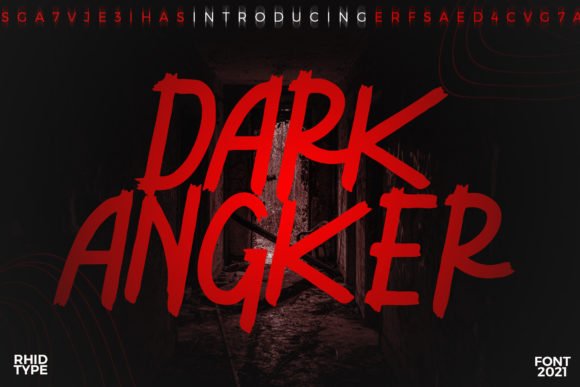
This is where the Dark Angker Font comes in – a solid display font designed to take your most creative ideas to the next level. With its unique style and versatility, it’s the perfect addition to any project that needs a bold statement. Whether you’re a seasoned designer or just starting out, the Dark Angker Font is a valuable tool that can elevate your work and make it truly unforgettable.
Dark Angker Font Key Features
- Font Family: Dark Angker, with multiple styles (Regular, Bold, Italic, Bold Italic)
- Unique Characteristics: Distinctive, bold, and mysterious design; suitable for use in logos, headings, and titles
Review of Dark Angker Font
Overall, I was impressed by the Dark Angker Font. It’s a great choice for anyone looking for a modern, edgy font that adds a touch of sophistication to their designs. ✨ Here are some of the things I liked about it:
- Unique design: Dark Angker Font has a distinctive look that sets it apart from more generic fonts.
- Good for headers: The font is perfect for headings and titles, as it grabs the reader’s attention.
- Legible: Despite its bold appearance, the font is still easy to read, even at smaller sizes.
- High-resolution support: Dark Angker Font looks great on both desktop and mobile devices.
- Not suitable for body text: While Dark Angker Font is great for headings, it’s not the best choice for body text, as it can be overwhelming.
- May not work well in small sizes: While the font is legible, it can start to lose its clarity when reduced to very small sizes.
Overall, I think Dark Angker Font is a solid choice for designers who want to add some edge to their work. It’s not perfect, but it’s a great option for those who want a bold, modern look.
The Dark Angker Font is ideal for creating dramatic and mysterious designs, such as:
- Horror-themed posters and flyers.
- Dark fantasy book covers.
- Spooky website headers.